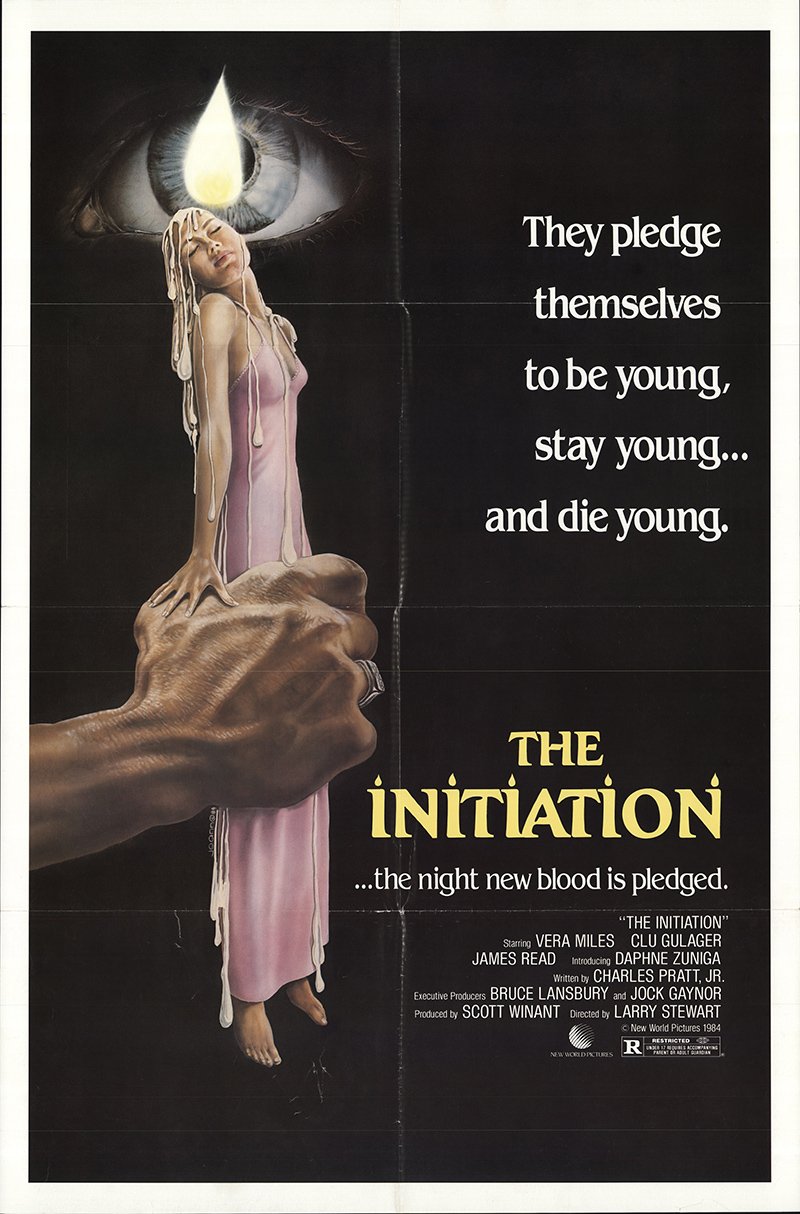
The Initiation (film) Font
Fonts in UseThe Initiation is a 1984 horror film directed by Larry Stewart. The movie follows a sorority pledge who is stalked by a hooded killer during a hazing ritual gone wrong.
On the film poster, the title font is a variant of Romic, a typeface created by Colin Brignall in 1979 for Letraset, with some modifications. Additionally, the taglines on the poster use the Benguiat typeface.